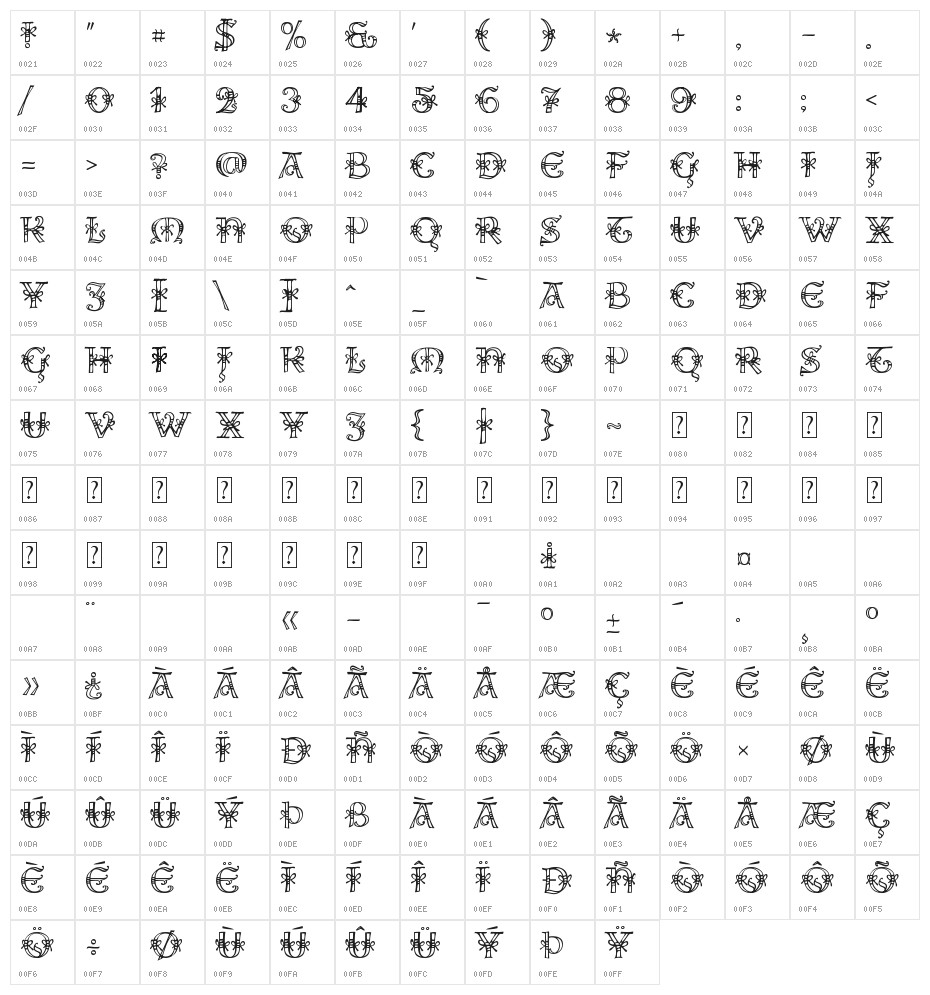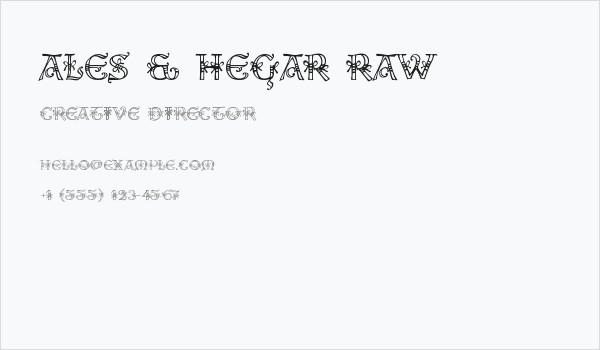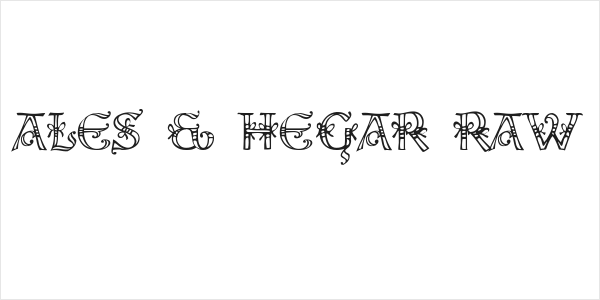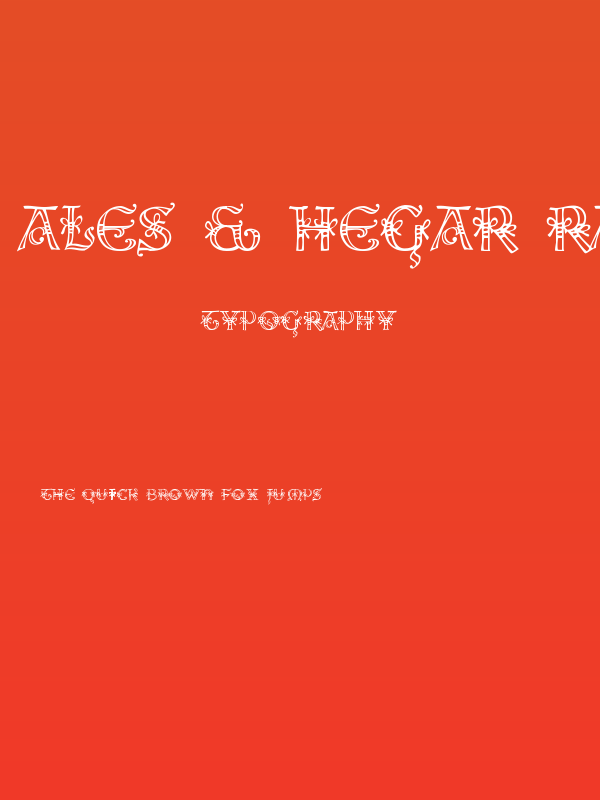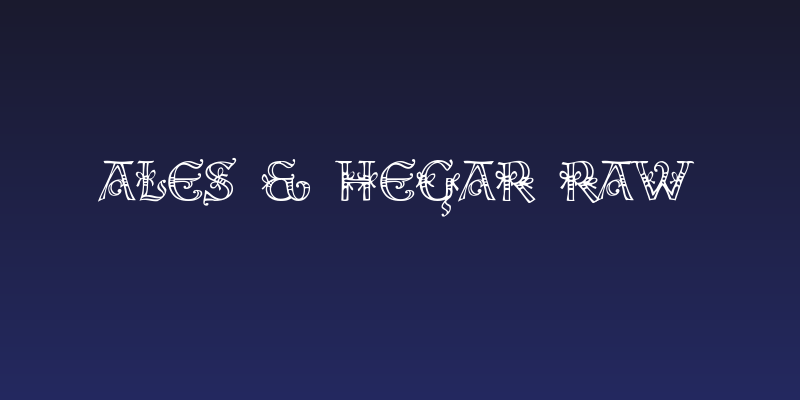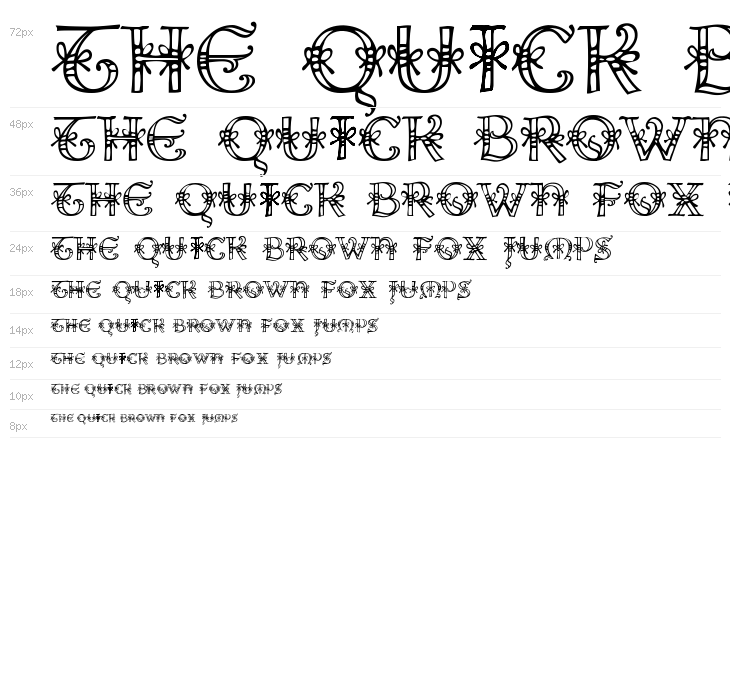
Ales & Hegar Raw Font
Ales & Hegar Raw Description
This font is a highly decorative and intricate typeface characterized by elaborate flourishes and embellishments. Each letter is adorned with ornate details, giving it a unique and artistic appearance. The design incorporates elements reminiscent of floral patterns and vintage motifs, creating a sense of elegance and sophistication. The characters are bold and striking, making them stand out prominently. This font is not suitable for body text due to its complexity but is perfect for creating eye-catching headlines, logos, or artistic projects where a touch of luxury and creativity is desired. The overall style is reminiscent of historical or classical design, with a modern twist that makes it versatile for various creative applications.
| Proposed Projects | Ideal for wedding invitations, luxury branding, artistic posters, and decorative signage. |